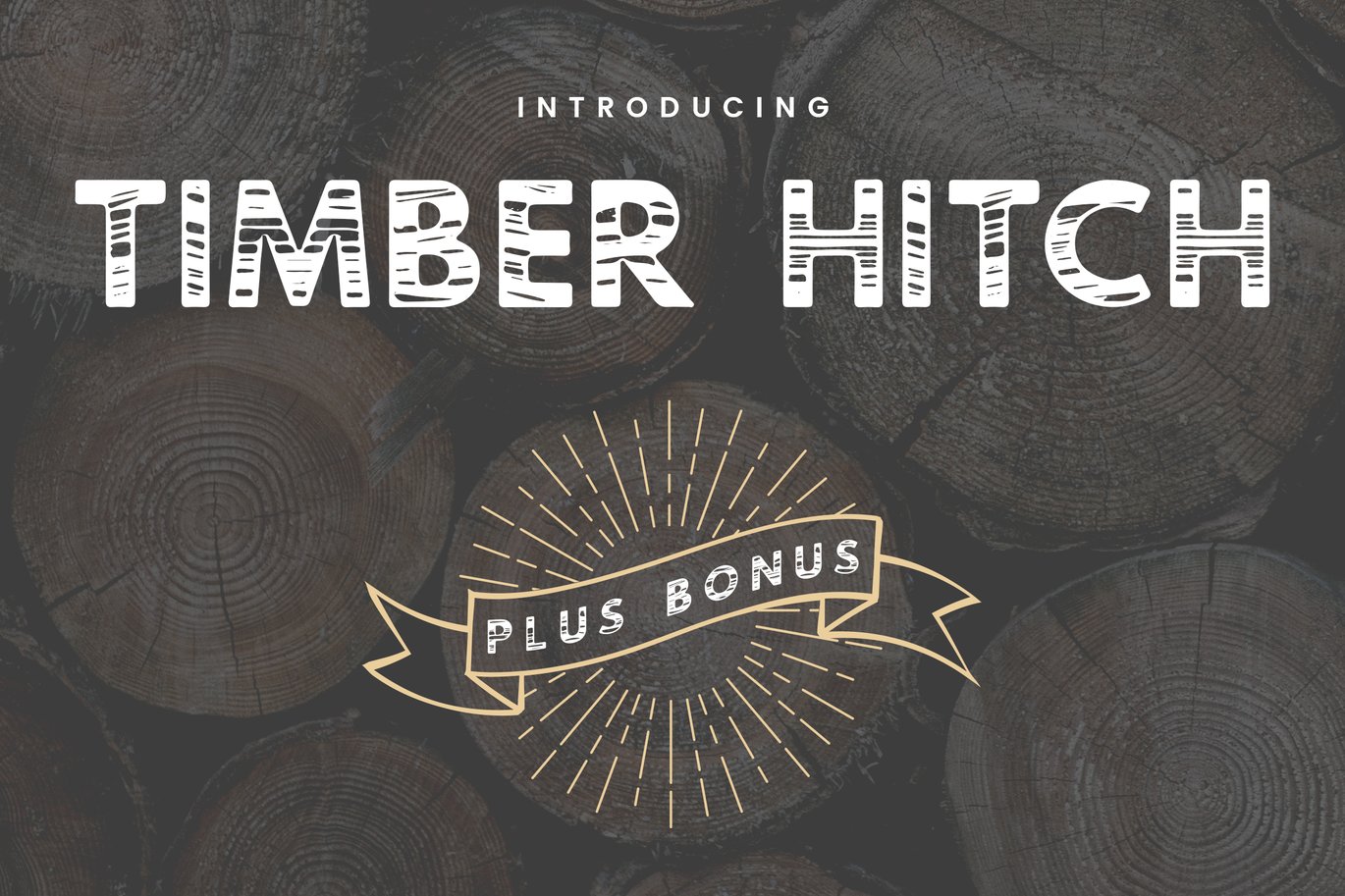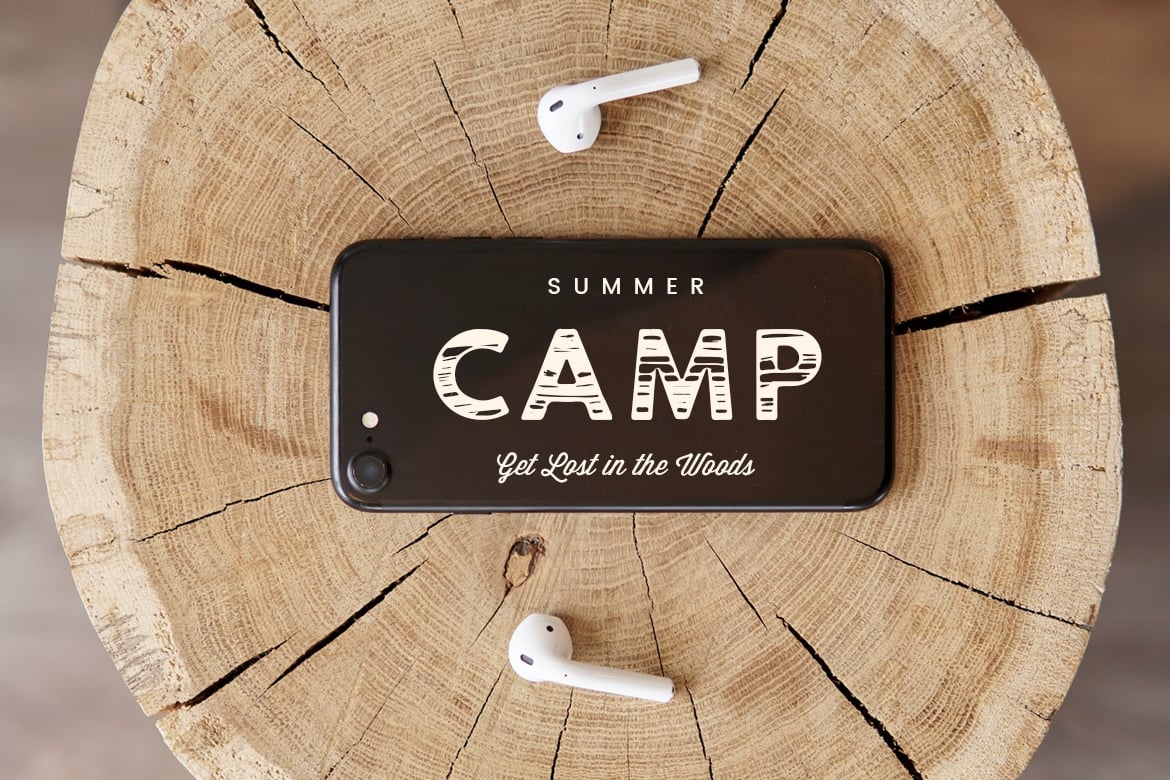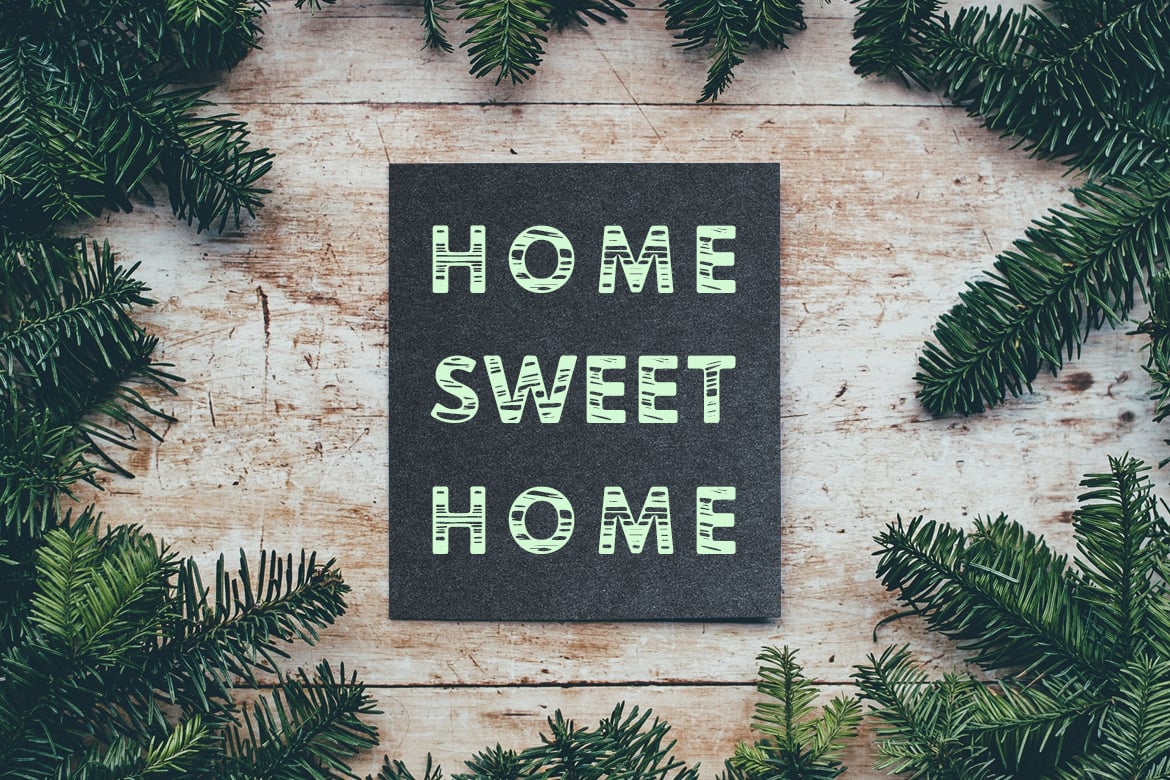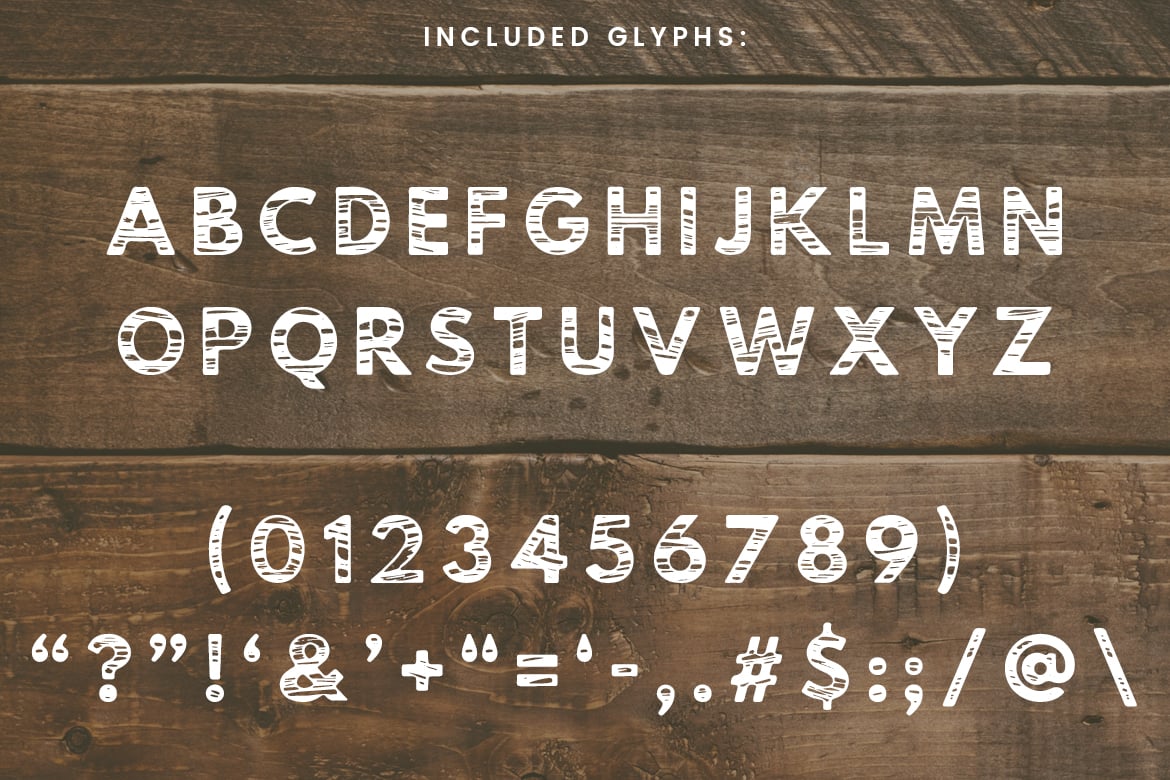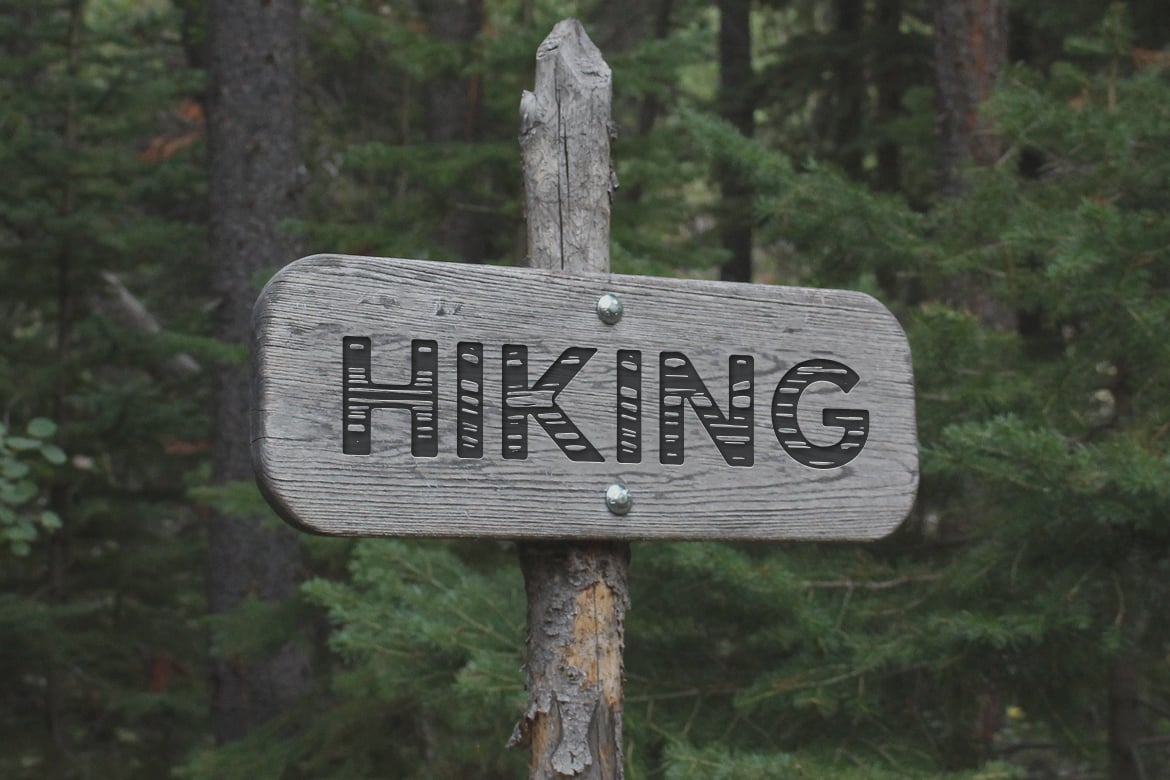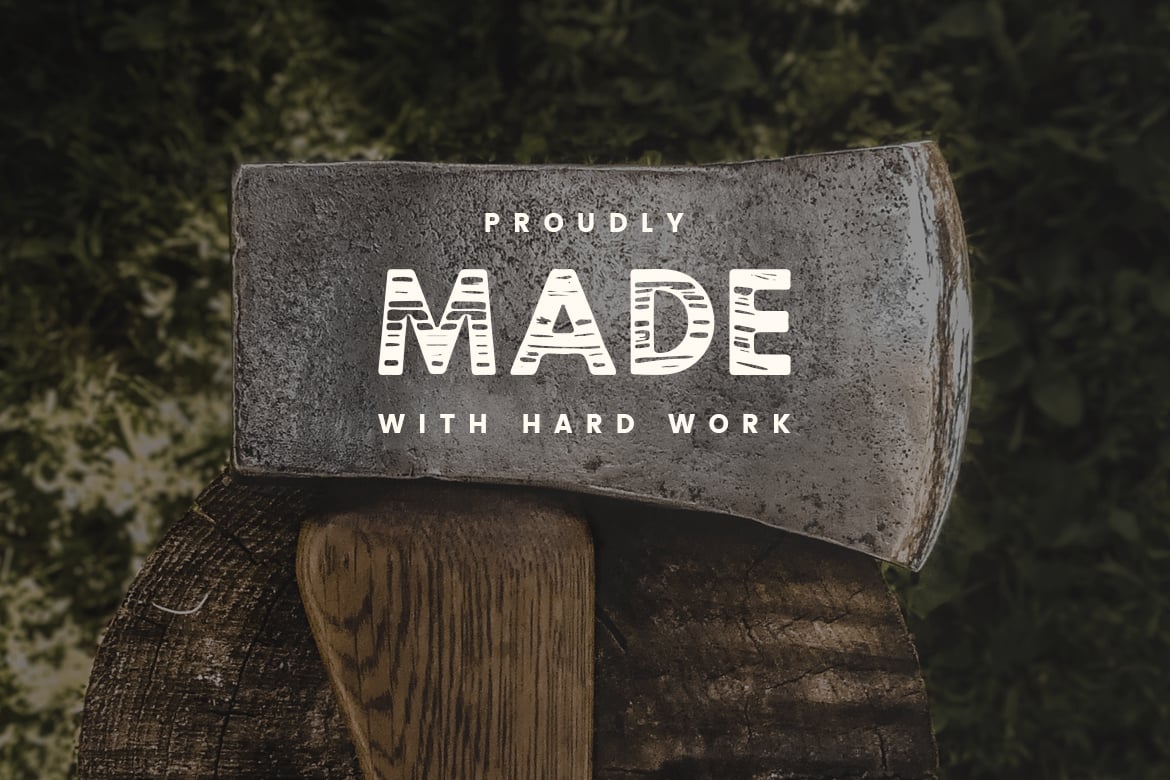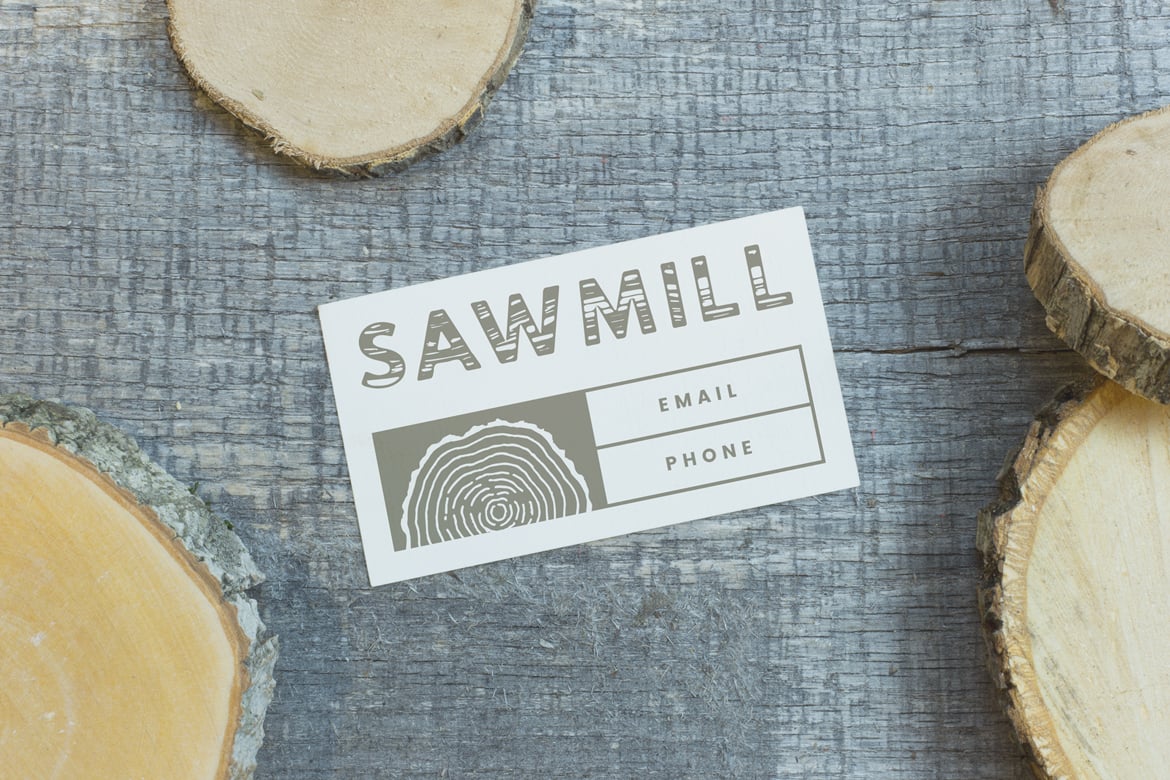
Timber Hitch Font + Bonus Nature Elements
Introducing Timber Hitch, a bold sans-serif font with a rustic woodgrain texture. This is an all-caps font that was handmade for nature designs and inspired by old logging camps. It would work great in wilderness posters, hiking clothing, rustic wedding stationery, antique logos, and many other uses.